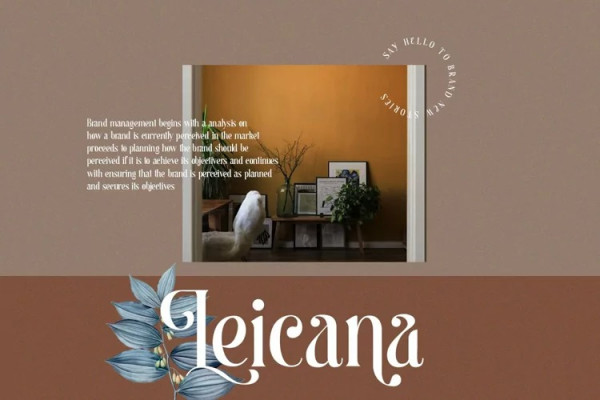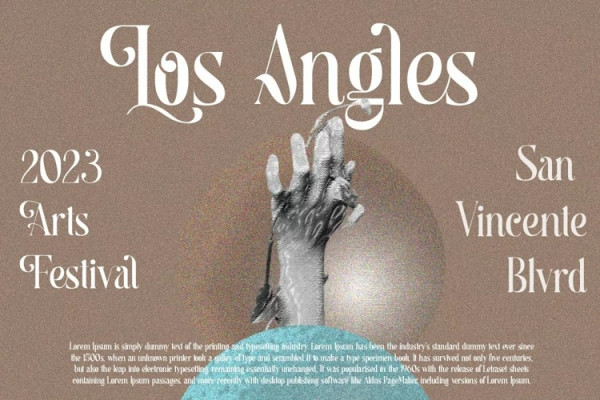
Begova Font
Begova Font Stylish Classic Serif. Begova is a classic and stylis display serif with rich stylistic alternates, best used as a display for headings, logos, branding, magazines, product packaging and invitations. Begova equipped with Ligature and many Alternates and come with clean lines and smooth curves give any project an extra touch of class.